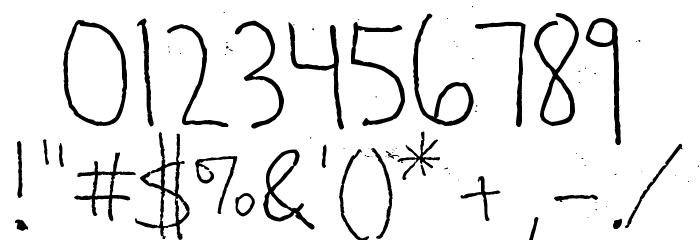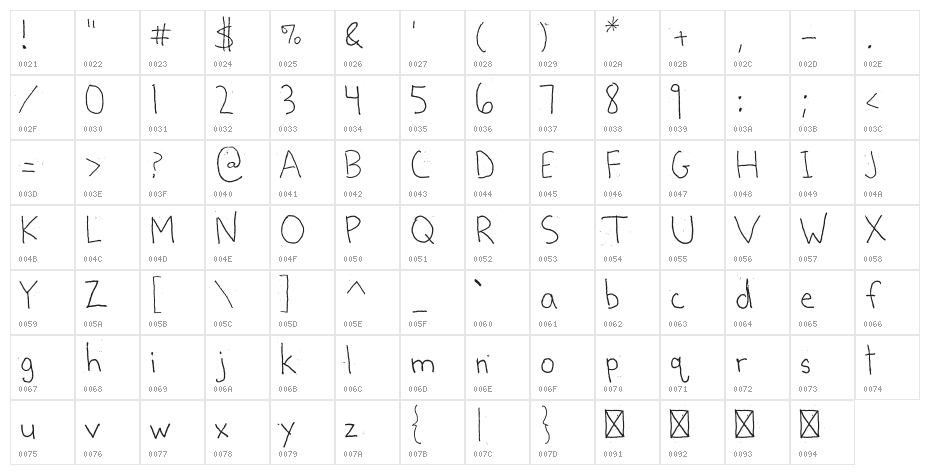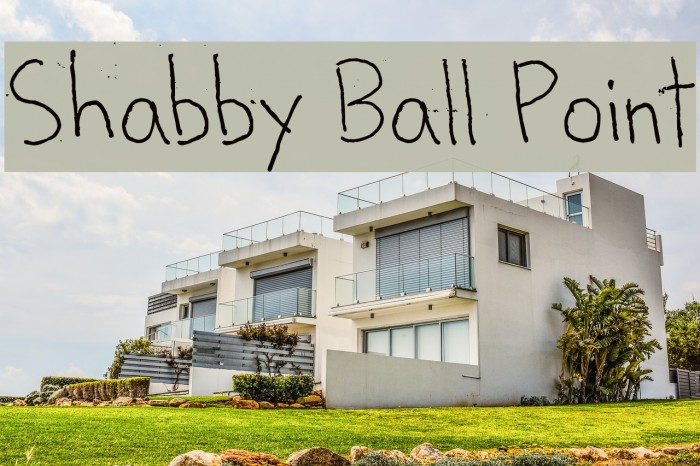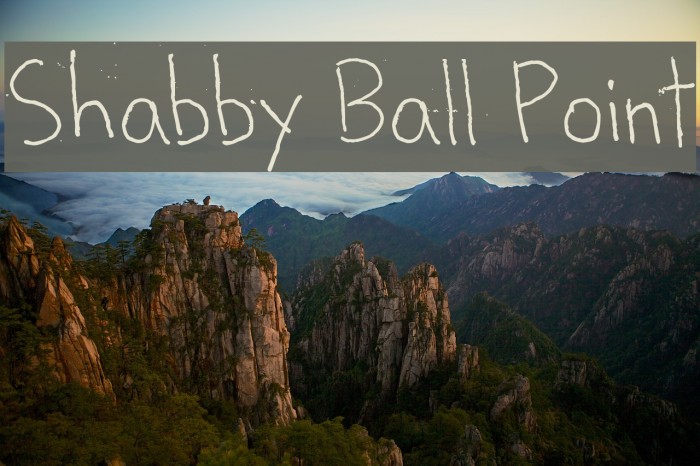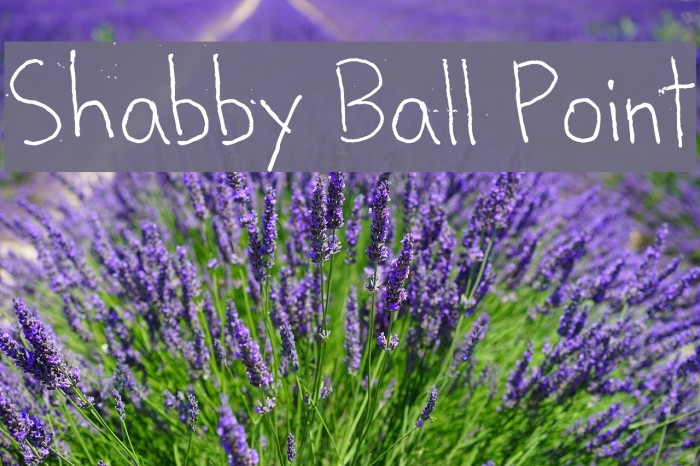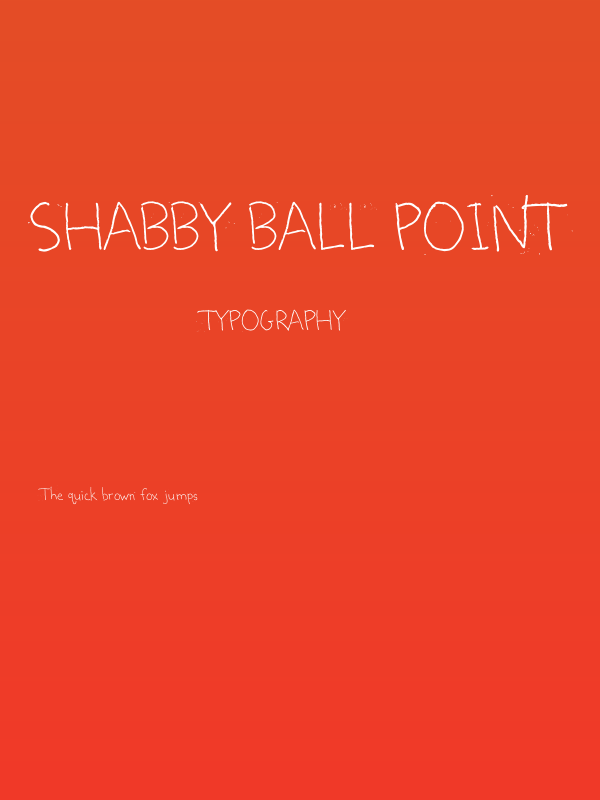
Shabby Ball Point Font
Shabby Ball Point Description
This font exudes a casual, handwritten style reminiscent of notes jotted down with a ballpoint pen. The characters are slightly irregular, adding a personal and approachable touch. The uppercase and lowercase letters maintain a consistent height, while the numerals are clear and legible. Special characters are included, enhancing its versatility for various uses. The overall appearance is informal and friendly, making it suitable for projects that require a human touch.
| Overall Style | Casual, Informal |
| Use Case | Creative projects, Informal communications |
| Proposed Projects | Ideal for personal notes, informal invitations, children's books, and creative projects that benefit from a handwritten aesthetic. |